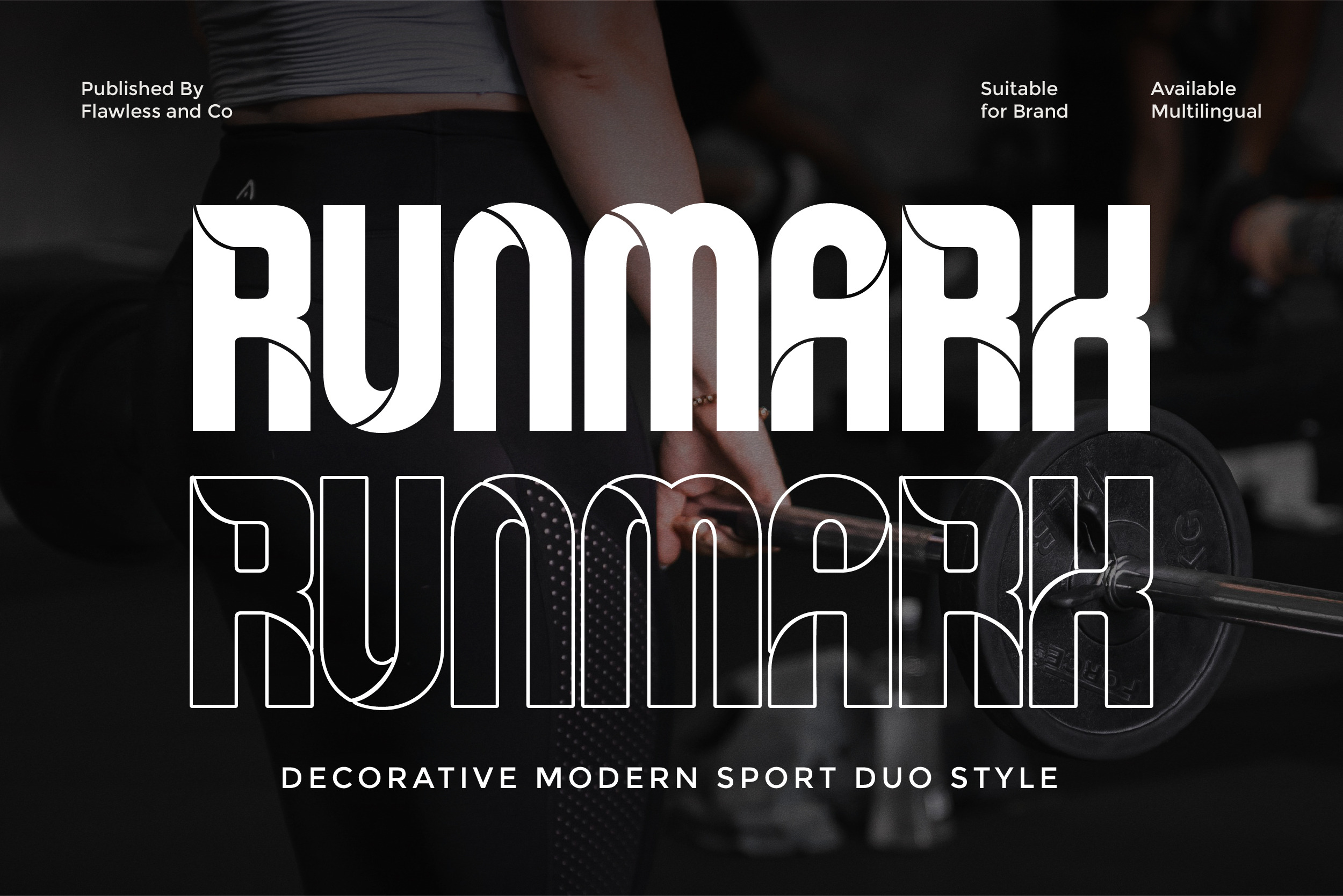
Runmark - Modern Sport Duo Font
Runmark is a decorative modern sport font designed to bring power, personality, and bold visual impact to every project. Its unique letter styling blends athletic energy with artistic curves, making it stand out among ordinary sport typefaces. Runmark is built for designers who want more than just speed and strength, it delivers a stylish sport identity that feels competitive, dynamic, and unmistakably modern.
Who Should Use Runmark?
Runmark is perfect for designers and creative professionals who want their sport-themed projects to look bold, stylish, and unforgettable. This font is ideal for branding and logo creators who work in the fitness, gym, workout, and athletics industry — from sportswear and gear brands to gyms, supplements, and extreme sports teams. It’s also a top choice for event designers, merchandise creators, and esport designers who need typography that instantly conveys power, movement, and competitive energy.
A Must-Have Font for "Brand and Logo" Creators and Designers
With its sharp decorative structure and powerful visual rhythm, Runmark instantly transforms any brand into a bold and memorable identity.
Why Choose Runmark for Brand and Logo Projects?
Runmark brings an unmatched combination of strength and style, making it the perfect foundation for powerful brand identities. Its decorative modern sport design delivers a unique visual character — bold enough to stand out, yet stylish enough to look premium and professional.
Suitable for
- Sport brand & athletic brand
- Gym & fitness logo
- Esports & gaming team identity
- Racing & automotive projects
- Bold headline & poster design
- Event sport banner & promotion
- Motivational quote & workout content